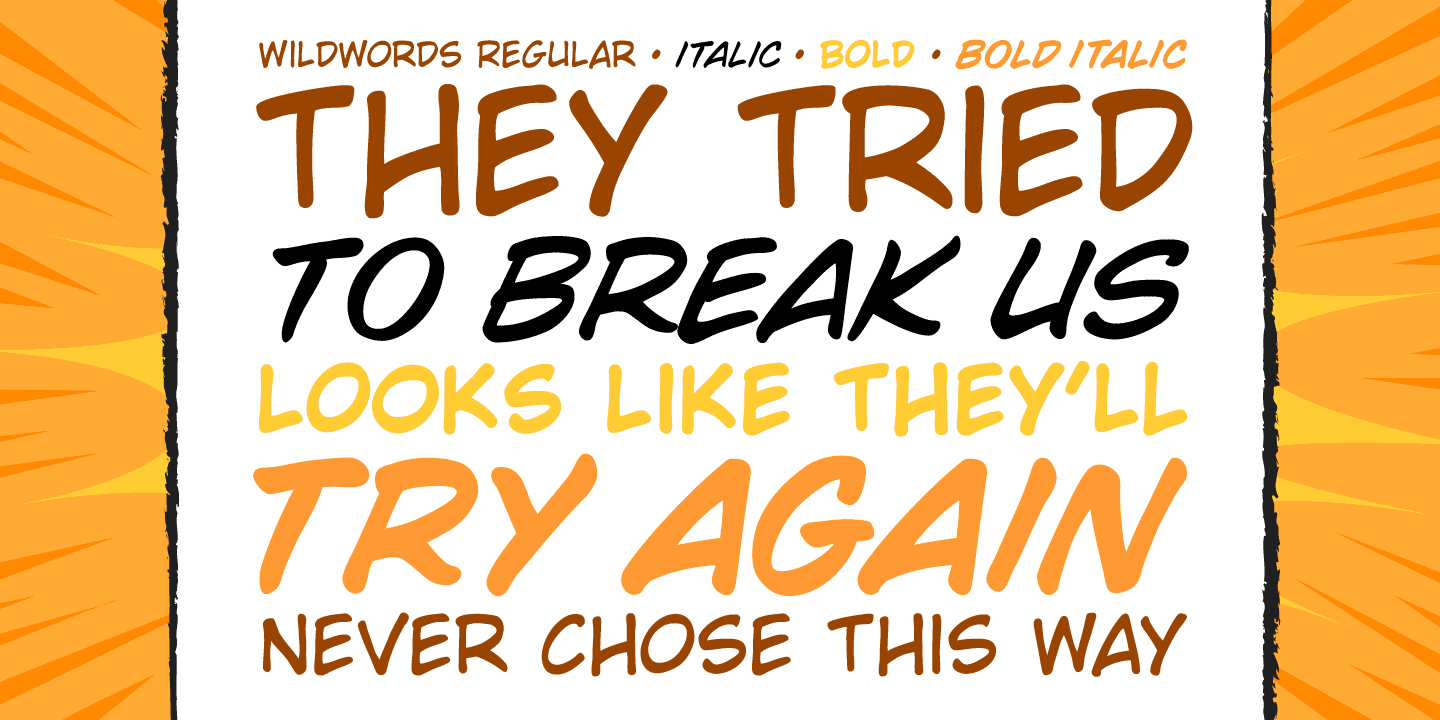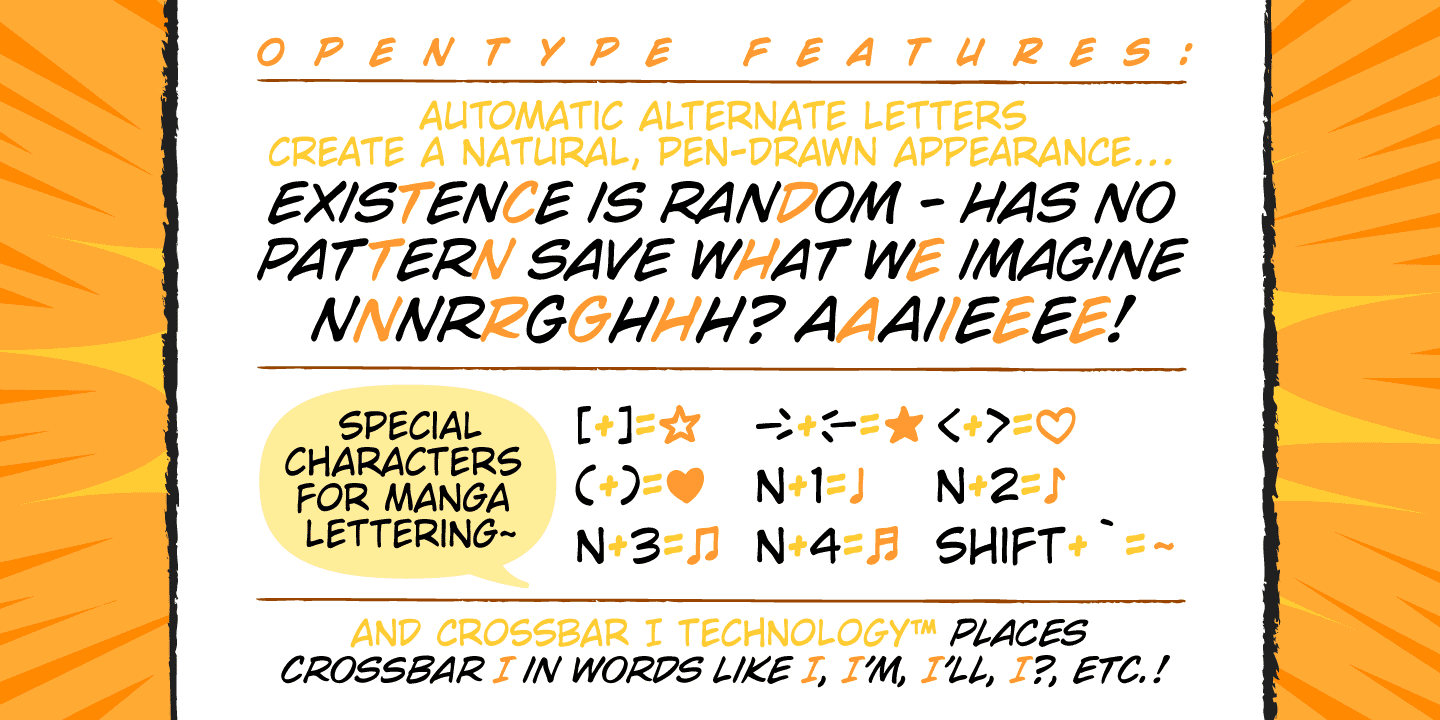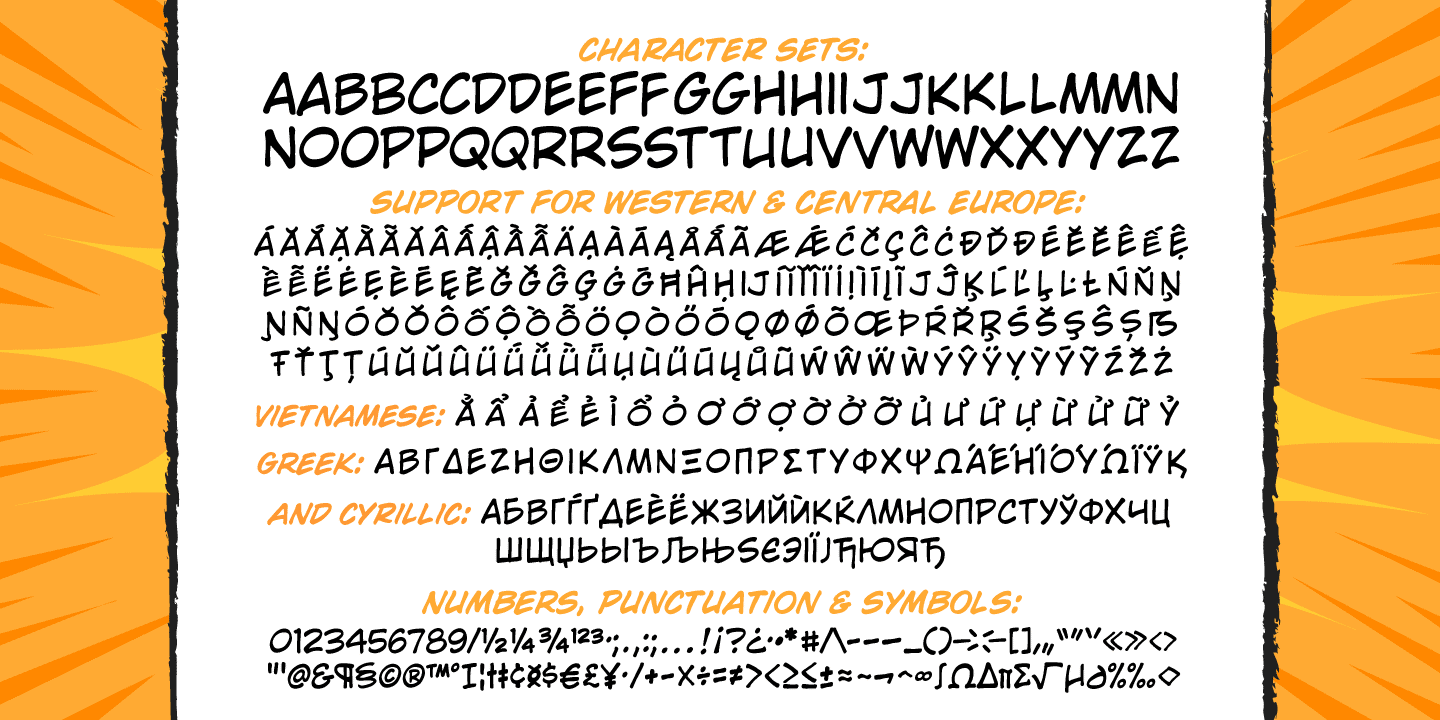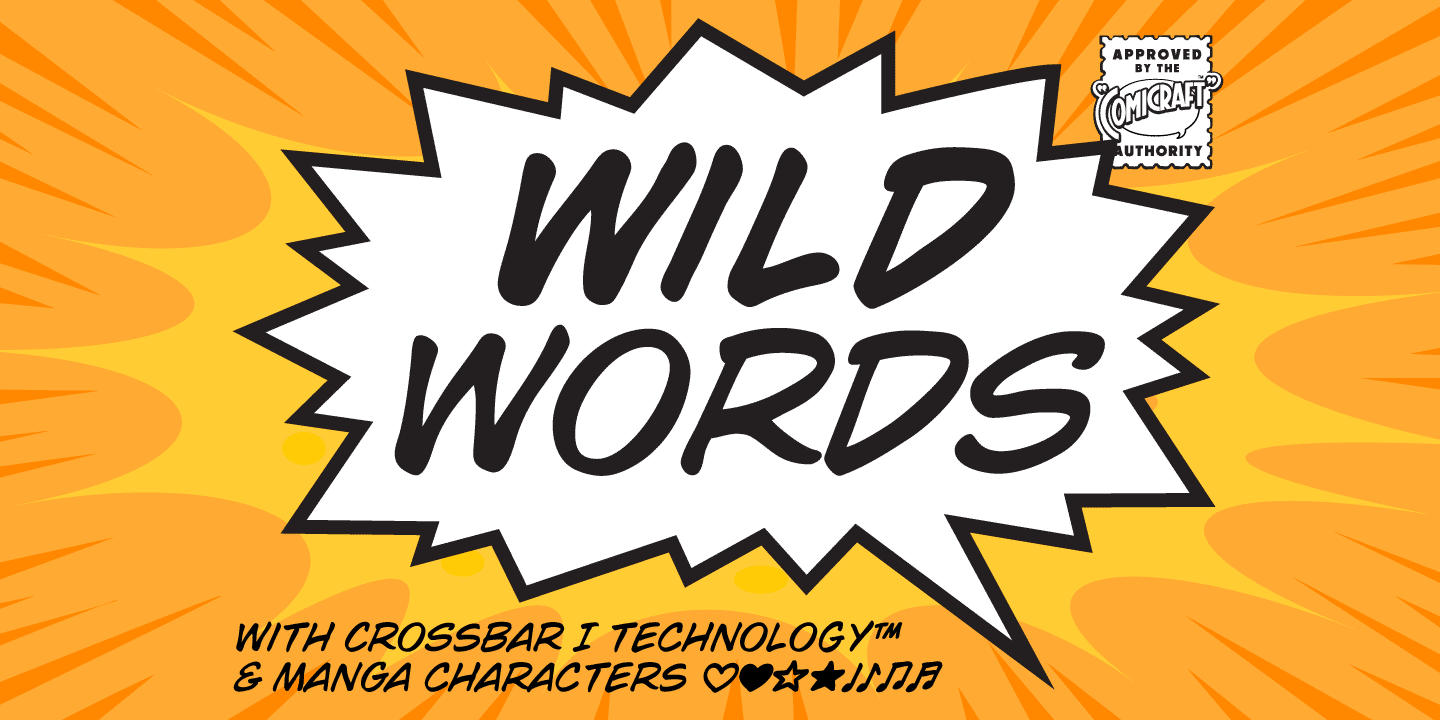
Wild Words
About Wild Words
Designed for lettering Jim Lee's WILDC.A.T.S. ADVENTURES in 1995, WildWords has become one of our most beloved fonts, used to letter everything from Manga translations to SAGA, and seen in TIME magazine and the LEGO catalog.